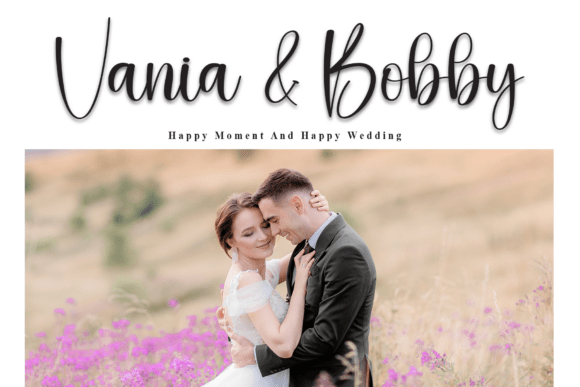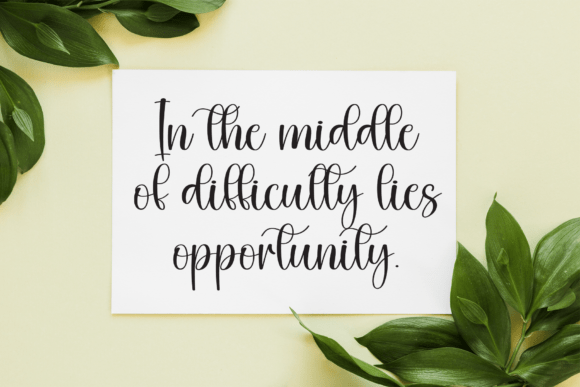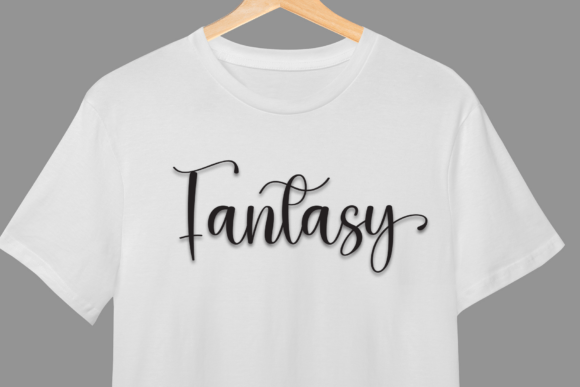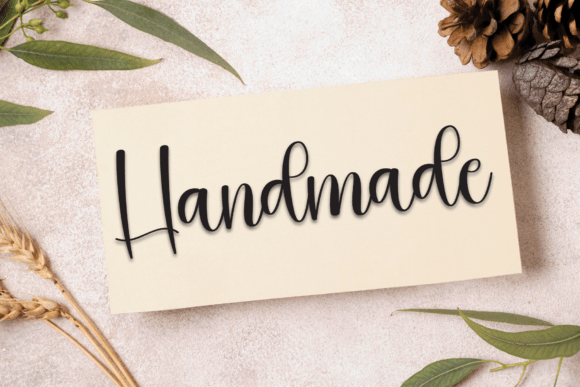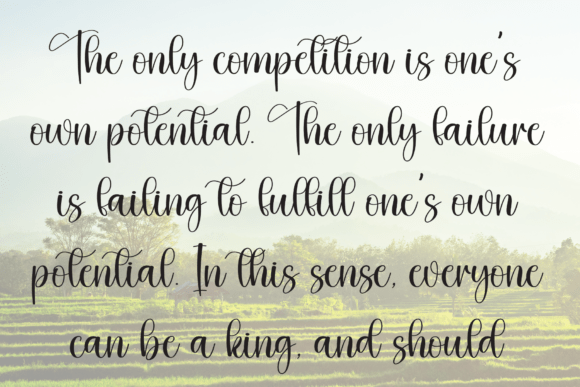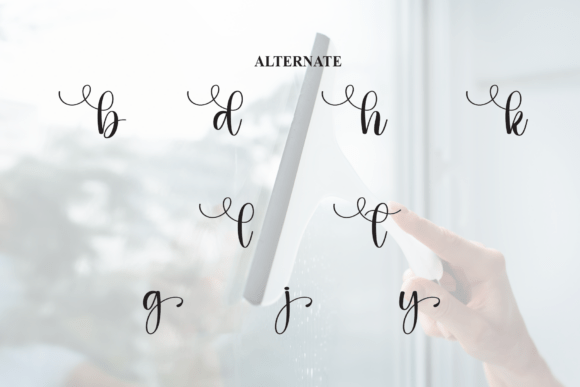
Introducing Clearly Font: Elevate Your Designs with Elegance and Magic
Are you a designer, crafter, or DIY enthusiast looking for a font that can add a touch of sophistication and whimsy to your projects? Look no further than Clearly Font, a magical script font that is carefully crafted to bring a sense of elegance and refinement to your creative endeavors. In this article, we’ll dive into the world of Clearly Font, exploring its features, benefits, and uses, and discover how it can transform your designs into true works of art.
What is Clearly Font?
Clearly Font is a beautiful script font that is designed to add a touch of magic to your designs. With its elegant and refined letterforms, this font is perfect for a wide range of creative projects, from Instagram graphics and social media posts to calligraphy scripts and DIY crafts. Whether you’re looking to create a stunning visual display or add a personal touch to your handmade projects, Clearly Font is the perfect choice.
Features of Clearly Font
- Elegant and Refined Letterforms: Clearly Font features beautifully crafted letterforms that exude elegance and sophistication. Each letter is carefully designed to ensure that your text looks stunning and refined.
- Magical and Whimsical: With its touch of magic, Clearly Font adds a sense of whimsy and wonder to your designs. Perfect for designers and crafters who want to create something truly unique and eye-catching.
- Versatile: Clearly Font is incredibly versatile and can be used for a wide range of creative projects, from digital designs to handmade crafts.
Uses of Clearly Font
Clearly Font is perfect for a wide range of creative projects, including:
- Instagram Graphics: Add a touch of elegance and sophistication to your Instagram graphics with Clearly Font. Perfect for creating stunning visual displays that will make your followers take notice.
- Calligraphy Scripts: Use Clearly Font to create beautiful calligraphy scripts for your DIY projects. Perfect for adding a personal touch to your handmade crafts.
- DIY Projects: Clearly Font is perfect for a wide range of DIY projects, from handmade cards and gift tags to scrapbooking and journaling.
- Digital Designs: Use Clearly Font to add a touch of elegance and sophistication to your digital designs, from brochures and flyers to websites and social media posts.
Benefits of Using Clearly Font
There are many benefits to using Clearly Font in your creative projects, including:
- Increased Elegance and Sophistication: Clearly Font adds a touch of elegance and sophistication to your designs, making them stand out from the crowd.
- Unique and Eye-Catching: With its magical and whimsical touch, Clearly Font helps to create unique and eye-catching designs that will grab attention.
- Versatility: Clearly Font is incredibly versatile and can be used for a wide range of creative projects.
Tips for Using Clearly Font
Here are a few tips for using Clearly Font in your creative projects:
- Experiment with Different Sizes and Colors: Clearly Font looks stunning in a variety of sizes and colors. Experiment with different combinations to find the one that works best for your project.
- Pair with Other Fonts: Clearly Font pairs beautifully with other fonts. Try pairing it with a bold font for a striking contrast.
- Use for Headings and Titles: Clearly Font is perfect for headings and titles. Use it to add a touch of elegance and sophistication to your text.
In conclusion, Clearly Font is a magical script font that is carefully crafted to bring a sense of elegance and refinement to your creative projects. With its elegant and refined letterforms, magical and whimsical touch, and versatility, Clearly Font is perfect for designers, crafters, and DIY enthusiasts who want to create stunning visual displays and add a personal touch to their handmade projects. Whether you’re looking for fonts for Instagram or calligraphy scripts for DIY projects, Clearly Font is the perfect choice.